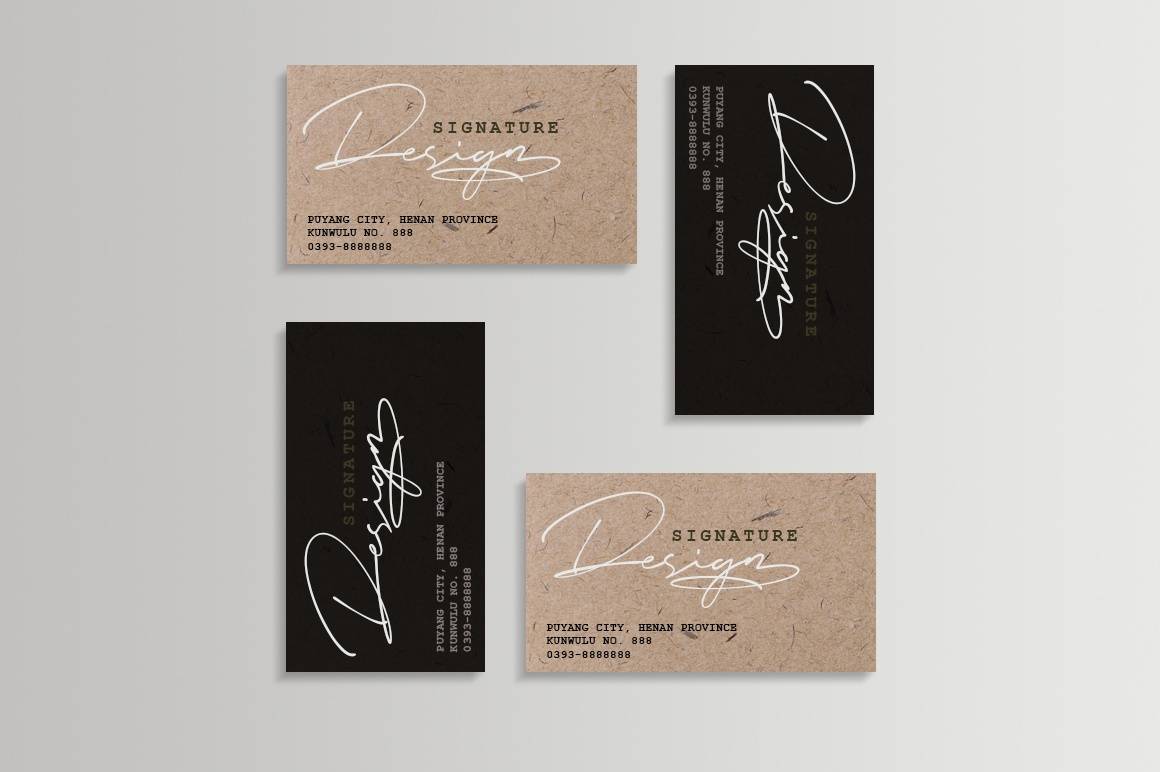
Daisy Signature Font is an elegant, lightweight script typeface that mimics natural, flowing handwriting with a delicate and refined feel. Its thin, slightly irregular lines and graceful letterforms convey a sense of sophistication and personal touch, making it ideal for branding, invitations, and stylish editorial designs that need a modern yet intimate look. This font works best in headlines or logos where a handwritten, luxurious personality is desired.
Daisy Signature Font
About Daisy Signature Font
| Font family | Daisy Signature Font |
| Designer | alphadesign |